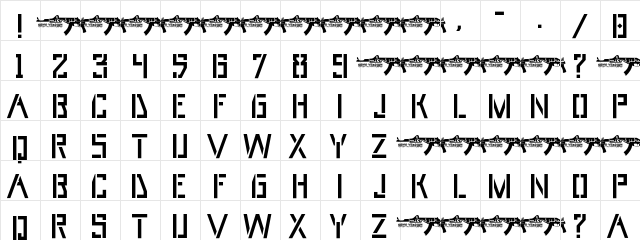
Umar Stencils Umar Stencils
| Foundry | Mikrojihad |
| Designer | Mikrojihad |
Design Context for Umar Stencils Typeface
Umar Stencils has the rough pragmatism of spray-painted stencil signage, adding a raw, street-level authenticity to designs.
Ideal for industrial branding, streetwear, military-adjacent aesthetics, and urban signage projects.
Pro Tip: Pair Umar Stencils with raw, utilitarian design elements — exposed concrete textures, flat colour, and minimal ornamentation suit it well.